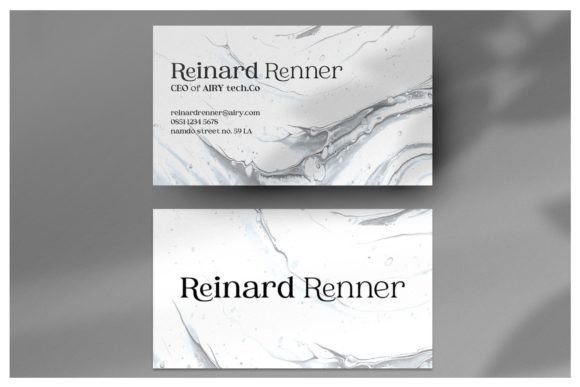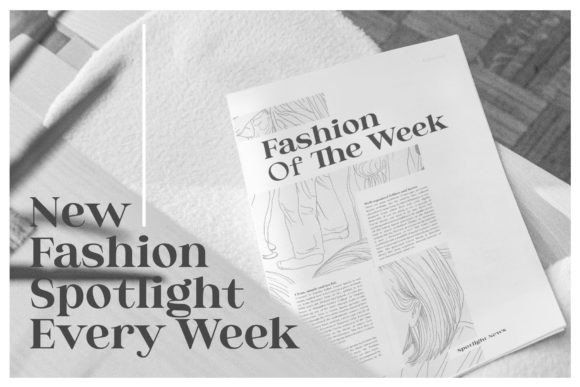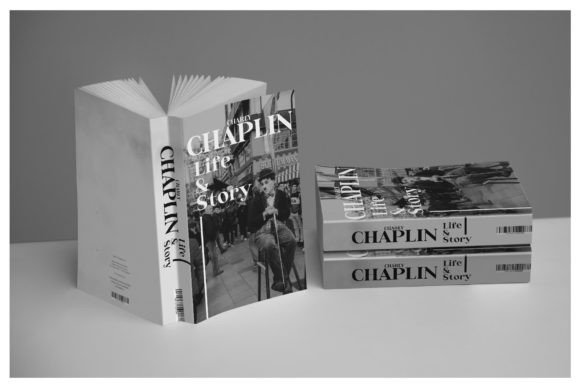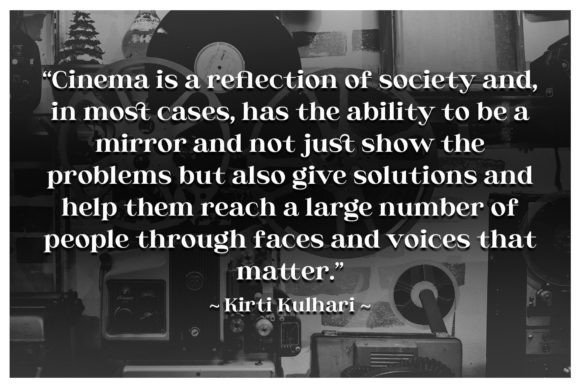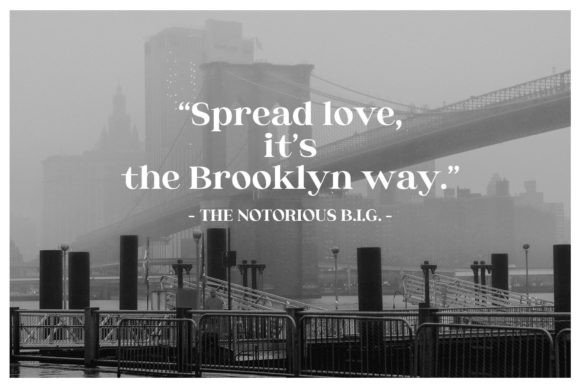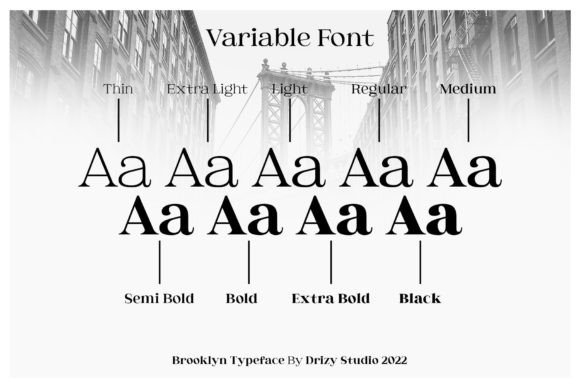
Introducing Brooklyn Font: The Ultimate Serif Font for Modern Designs
Are you tired of using the same old fonts in your designs? Look no further than Brooklyn Font, a cool and assertive serif font that’s perfect for any creative project. With its contemporary and fresh style, Brooklyn Font is sure to make your designs stand out from the crowd.
What is Brooklyn Font?
Brooklyn Font is a serif font that’s designed to make a statement. Its unique blend of classic and modern elements makes it perfect for designers who want to add a touch of sophistication to their work. Whether you’re creating a logo, brochure, or website, Brooklyn Font is the perfect choice.
Key Features of Brooklyn Font
- Cool and Assertive: Brooklyn Font has a confident and assertive personality that’s perfect for designers who want to make a statement.
- Contemporary and Fresh: With its modern style, Brooklyn Font is perfect for designers who want to create fresh and contemporary designs.
- Serif Font: Brooklyn Font is a serif font, which means it has small lines or flourishes at the ends of the letters. This gives it a classic and sophisticated look.
- Versatile: Brooklyn Font is perfect for a wide range of design projects, from logos and brochures to websites and more.
Why Choose Brooklyn Font?
So why choose Brooklyn Font over other fonts? Here are just a few reasons:
- Unique Style: Brooklyn Font has a unique style that’s sure to make your designs stand out from the crowd.
- Easily Readable: Despite its bold and assertive personality, Brooklyn Font is still easily readable, even at small sizes.
- High-Quality: Brooklyn Font is a high-quality font that’s designed to look great in any design.
How to Use Brooklyn Font in Your Designs
Using Brooklyn Font in your designs is easy. Here are a few tips:
- Pair it with Other Fonts: Brooklyn Font looks great when paired with other fonts. Try pairing it with a sans-serif font for a bold and modern look.
- Use it for Headings: Brooklyn Font is perfect for headings and titles. Use it to add a touch of sophistication to your designs.
- Experiment with Different Sizes: Brooklyn Font looks great at a wide range of sizes. Experiment with different sizes to find the one that works best for your design.
If you’re a designer or crafter, here are a few tips for using Brooklyn Font in your work:
- Use it for Logos: Brooklyn Font is perfect for logos and branding. Use it to create a bold and memorable logo.
- Add it to Your Website: Brooklyn Font is a great choice for websites. Use it to add a touch of sophistication to your website’s design.
- Use it for Print Designs: Brooklyn Font is perfect for print designs, such as brochures, flyers, and more.
In conclusion, Brooklyn Font is a cool and assertive serif font that’s perfect for any design project. With its contemporary and fresh style, it’s sure to make your designs stand out from the crowd. Whether you’re a designer, crafter, or just someone who loves typography, Brooklyn Font is a great choice. So why not give it a try and see how it can elevate your designs?